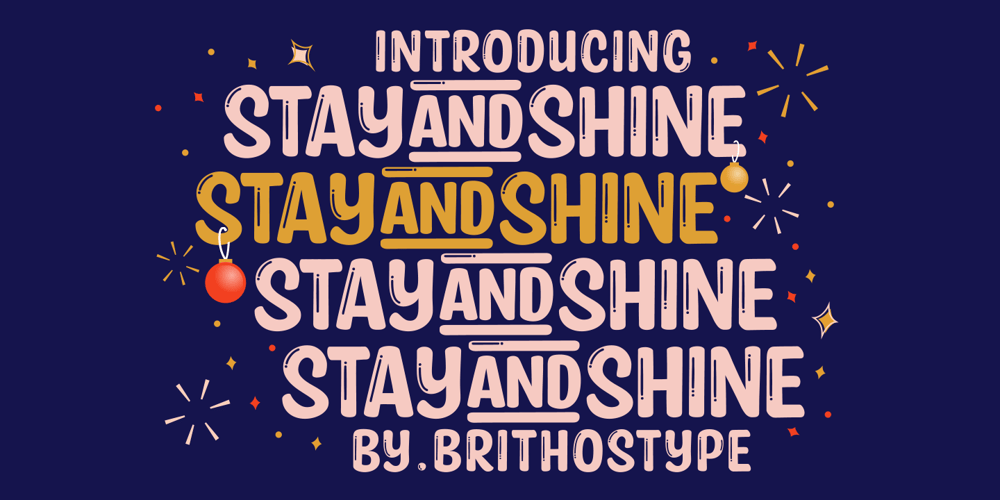
Stay and Shine Font Family was designed by Ali Hamidi and published by Brithos Type. Stay and Shine contains 1 styles and family package options. Stay and Shine is a strong and tall display font. Its sharp yet approachable feel makes this font incredibly versatile, fitting a wide range of contexts.